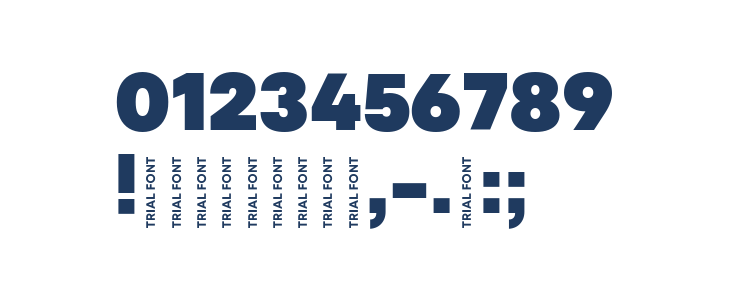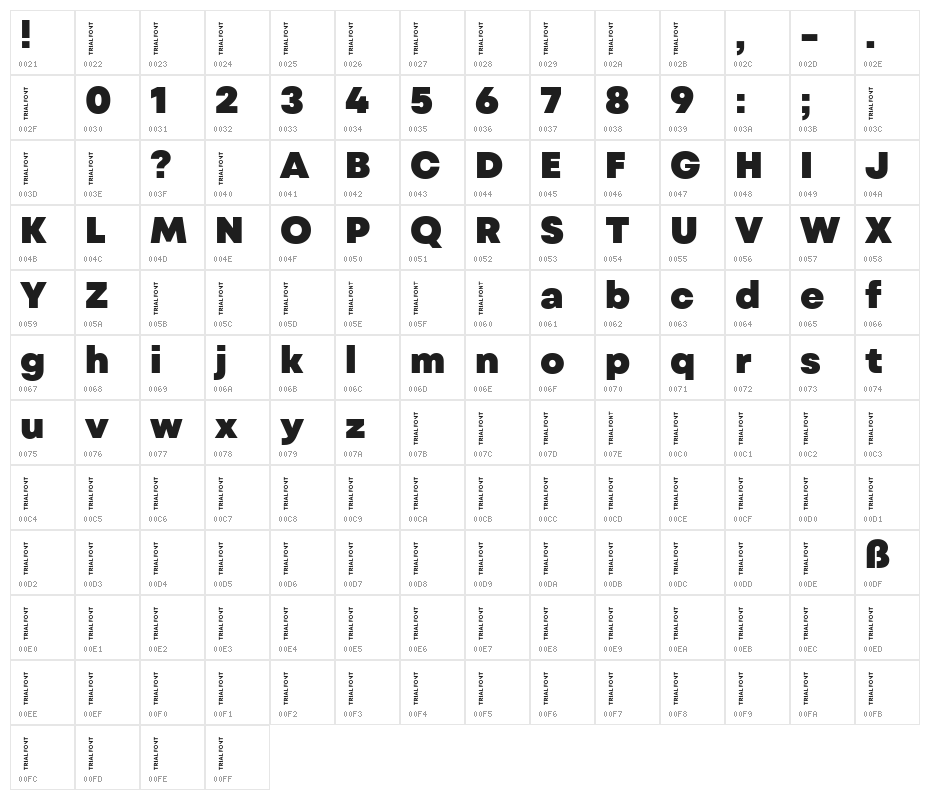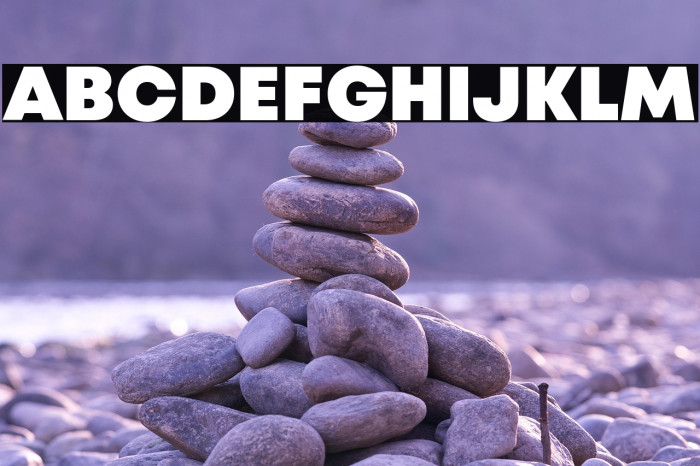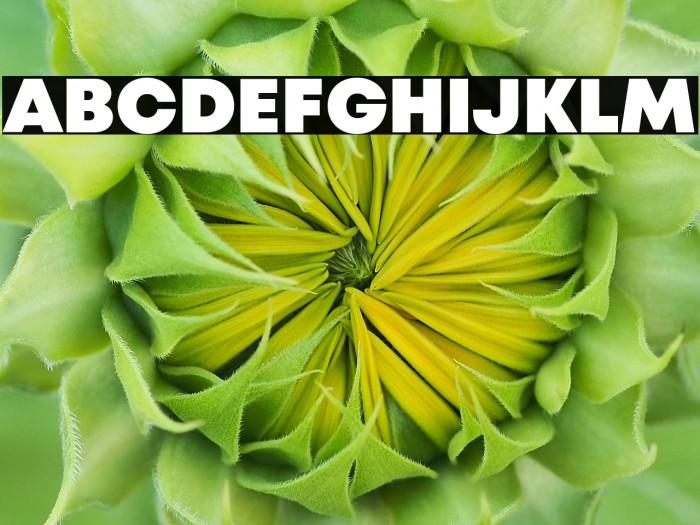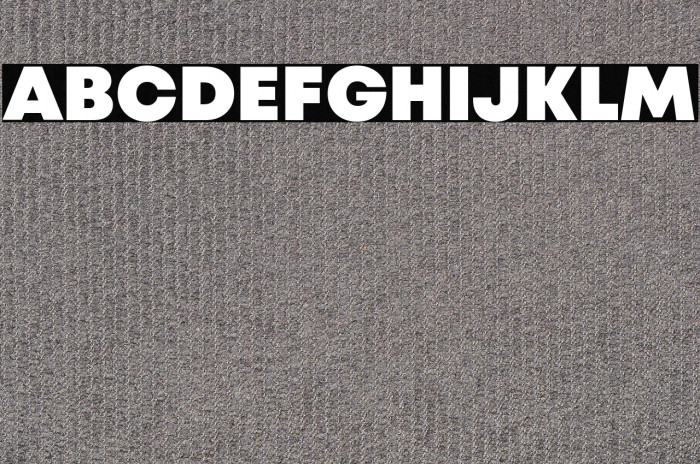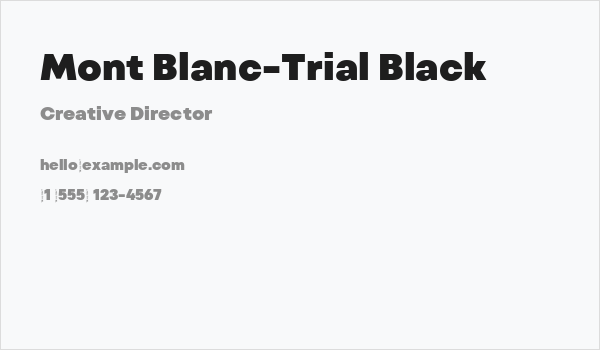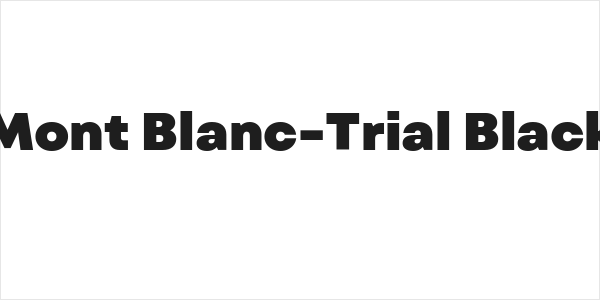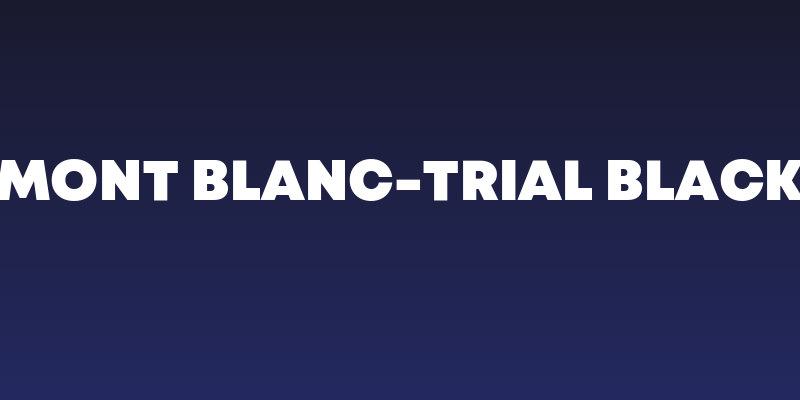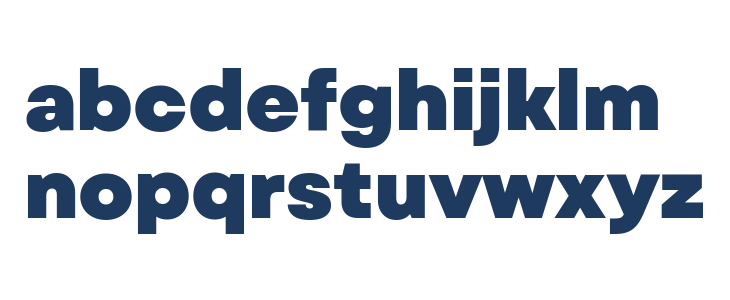
Mont Blanc-Trial Black Font
Mont Blanc-Trial Black Description
This font features a bold and robust design with strong geometric shapes and a modern aesthetic. The uppercase and lowercase letters are well-balanced, with consistent stroke widths that convey a sense of stability and confidence. The numerals are clear and easy to read, making them suitable for a variety of applications. The special characters are designed to complement the overall style, maintaining the bold and impactful look. This font is ideal for creating attention-grabbing headlines, logos, and branding materials that require a modern and assertive presence.